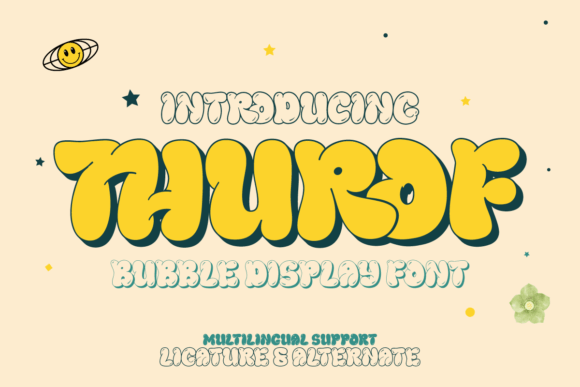
Thrill your eyes and engage your soul with Thurof, an audacious typeface that dances across your screen, leaving a trail of visual ecstasy. Join the Halloween carnival with Thurof, a font family that embodies the spirit of spooky season. Dive into a realm where words become art, and messages morph into masterpieces.
Thurof's spirited nature is a fusion of boldness and whimsy, a captivating dance of characters that commands attention. It's the perfect companion for those seeking to elevate their designs, adding a touch of enchantment to their creations. Its versatile essence effortlessly adapts to any project, be it a Halloween poster, a whimsical invitation, or an enchanting social media campaign.
Explore the depths of Thurof's three captivating styles: Regular, Outline, and Shadow. Each style offers a distinct personality, allowing you to effortlessly craft the perfect ambiance for your project. From the bold and confident stroke of Regular to the playfully contoured Outline, or the mysterious allure of Shadow, Thurof empowers you to weave your visual tapestry with precision.
Immerse yourself in a world of endless possibilities with Thurof's diverse ligatures and characters. Let your imagination soar as you craft unique and captivating designs that captivate and inspire. The multilingual prowess of Thurof breaks down linguistic barriers, allowing your message to resonate across borders and cultures.
Thurof is your gateway to a world where creativity flourishes and visual boundaries dissolve. Embrace the allure of this enchanting font family and watch as your projects transform into captivating expressions of art. Let Thurof enchant your audience, leaving them spellbound by the magic of your words.